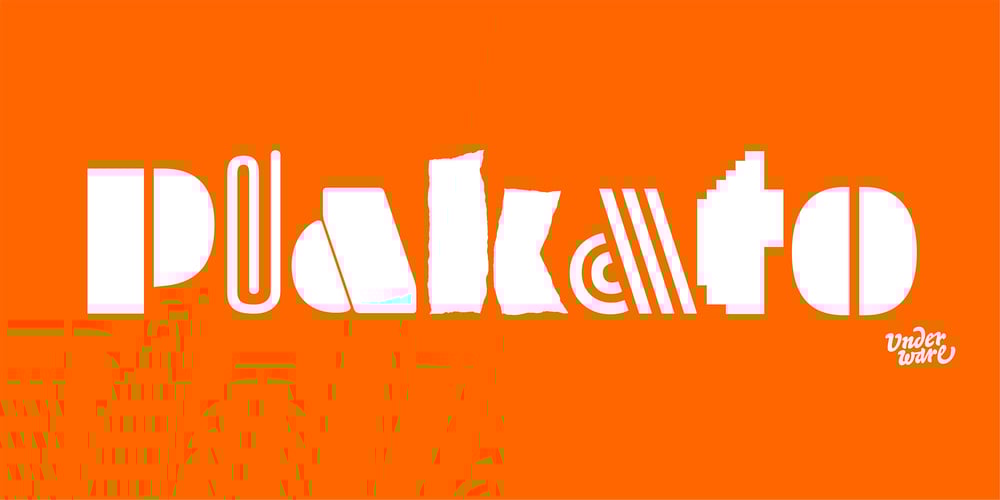
Plakato Pro Font Family was designed by Bas Jacobs, Akiem Helmling, Sami Kortemäki and published by Underware. Plakato Pro contains 16 styles and family package options. Plakato, a stencil love affairPlakato is a family of display fonts, consisting of various eye-catching styles, each of them very bold. Plakato is an identity toolkit, a heavyweight building block in case you need a strong personality, a small stencil font family to cut out your best ideas and grab all the attention. But just as with many other creations, its outcome is as divers as its multiple origins.Plakato comes in 16 eye-catching styles. The default stencil style comes in Regular & Italic. They both have 2 variations: one version, named Plakato Stencil, automatically creates borders around the text, putting any text into a graphic stencil in this way. Another version, the extruded three-dimensional version, guarantees even more attention for your message.Next to this there is also the Inline version, which is an optical play with a lot of lines. Plakato Inline has a supportive background layer, a separate font in case you want to add a background in a different colour.Then there is Plakato Paper, a manually teared version of Plakato offering a more physical look. This small family of eye-catching display fonts also contains a Neon font, an independent design in Plakato style, which can actually be used for making neon signs due to its construction. Plakato Neon comes with its own Dingbat font for that extra flush-flush. Plakato has also been redrawn on a C64, and with all its accompanying limitations been ported back and turned into a font: Plakato Game. Also this font comes with its own Dingbat font, full of emoji’s and icons for oldskool pleasure.Last but not least there is Plakato Build, constructed out of blocks. As if that wasn’t enough, there are various dynamic versions in the Plakato Play package, which offer a whole new range of possibilities for typographic expression, with new animation and interaction opportunities.